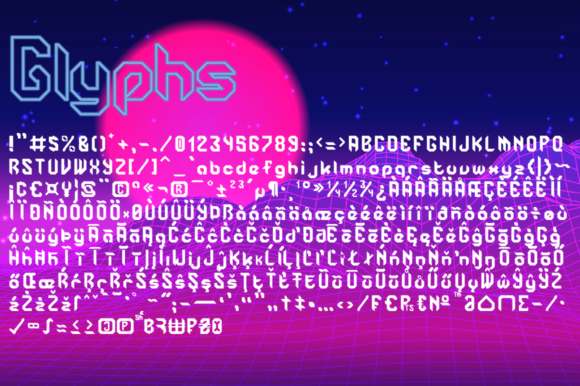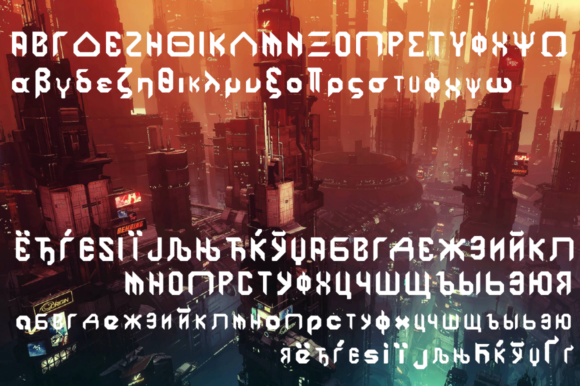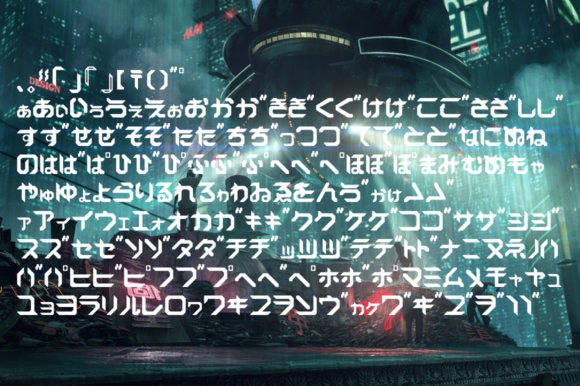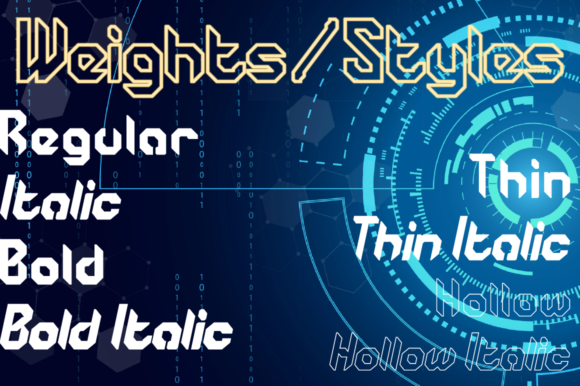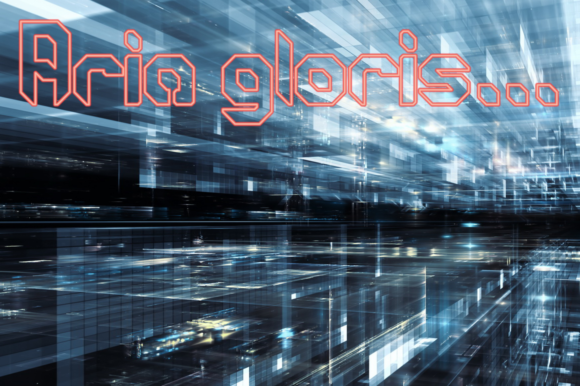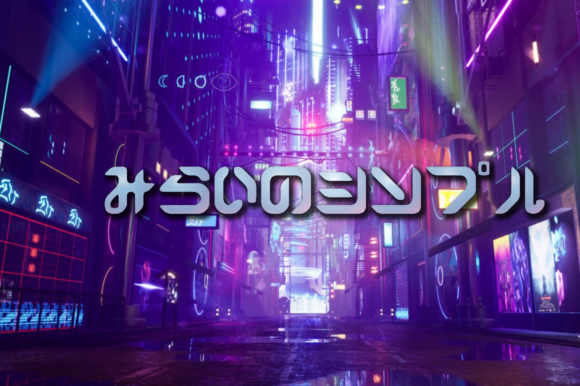
Introduction to Semiautonomous Subunit Clade Family Font
Based on a weird thought of medieval monks hunched over PCs in an abbey on the moon, Semiautonomous Subunit Clade (SSC) is an attempt to find a medium between blackletter and sci-fi fonts.
SSC is ideal for those looking for a unique touch in their typography or just want that cyber goodness .